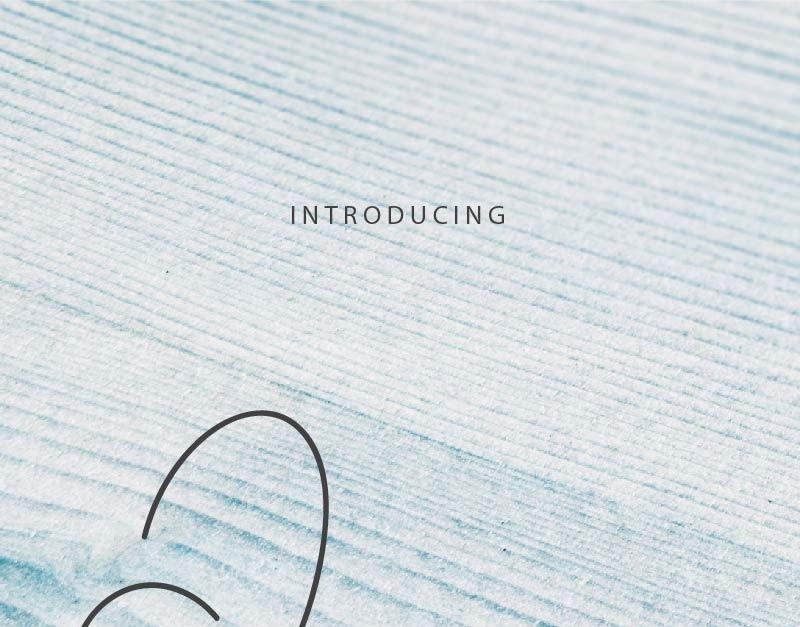
Overa Font
To all every Creative folks, Today we are going to present one of our newest font : Overa Signature Font . This new font is a signature style font script. This font was made perfectly in our studio in Bandung-Indonesia. It was made by our Typeface designer : Fahri and Sarah.
This font has an exclusive beautiful signature style. The characters of this font is sophisticated, feminine, modern, luxury, elegant, brush and natural look. With these styles you can explore many industries and designs categories : Wedding, catering, Display, Music, Cafe, florist, gardening, makeup, designer etc . With an extendend licenses you can create anything you want : Branding (logo, stationery, bizcard, head letter, folder etc), promotions stuff (flyer, brochure, postcard etc), Digital marketing (Banner, Ads, cover etc), Personal Invitation, Magazine, Website etc
Overa Signature Font has a unique and exclusive glyphs that will be great for many projects categories : Logo type, flyer, stationery, business card, signage, flyer, brochure etc. With your creativity, there’s no limit using with this typeface.